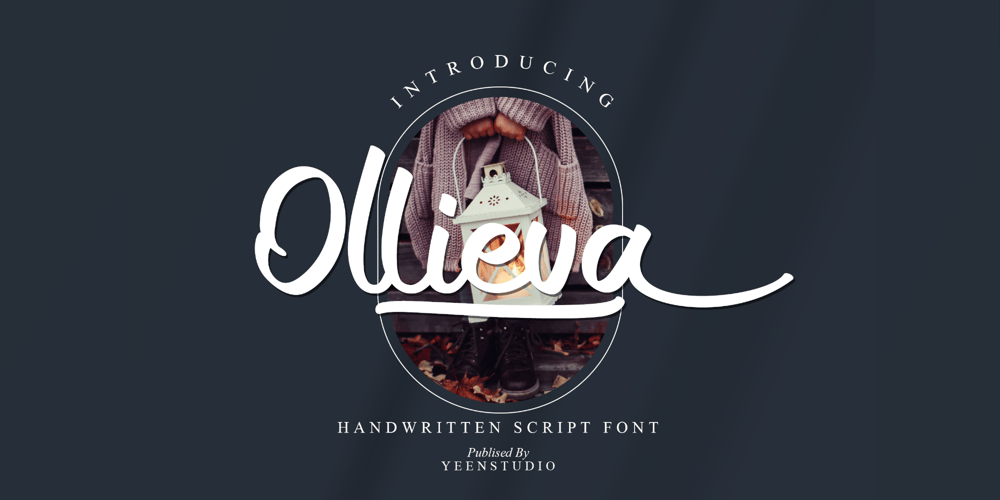
Ollieva
Ollieva font
Ollieva Font Family was designed by Wahyudi Mokoagow and published by Yeen Studio. Ollieva contains 1 styles and family package options. Introducing Ollieva – Handwritten Script FontThis Font can be used for any variety of purposes, such as: Photography, Wedding Invitation, Packaging Product, Logo Type, Brand, and also can be used for personal purpose.This Font Template contains Modern, Elegant, creative, Professional and Unique Concept.FEATURES Uppercase & Lowercase letters Numbering and Punctuations Ligatures Multilingual Support Works on PC or Mac Simple Installation Support Adobe Illustrator, Adobe Photoshop, Adobe InDesign, also works on Microsoft Word. All images on the demo is just for preview purpose only and not actually included on the filesHope you Like it.Thanks.